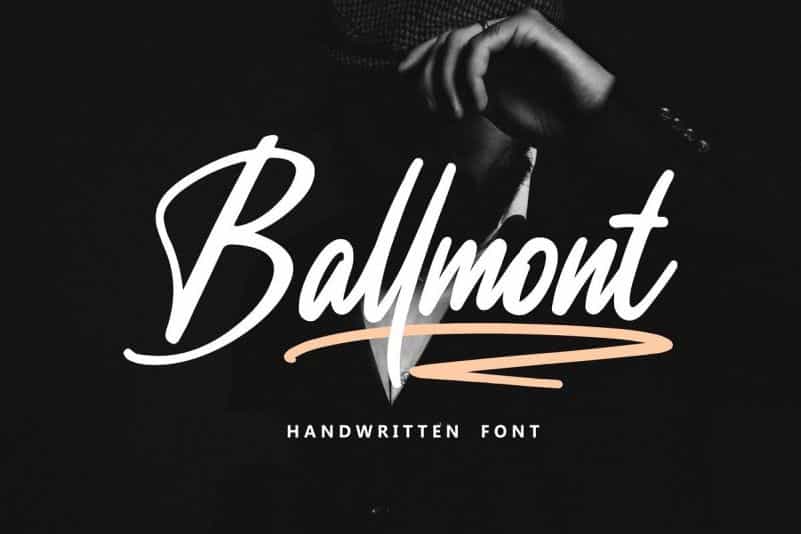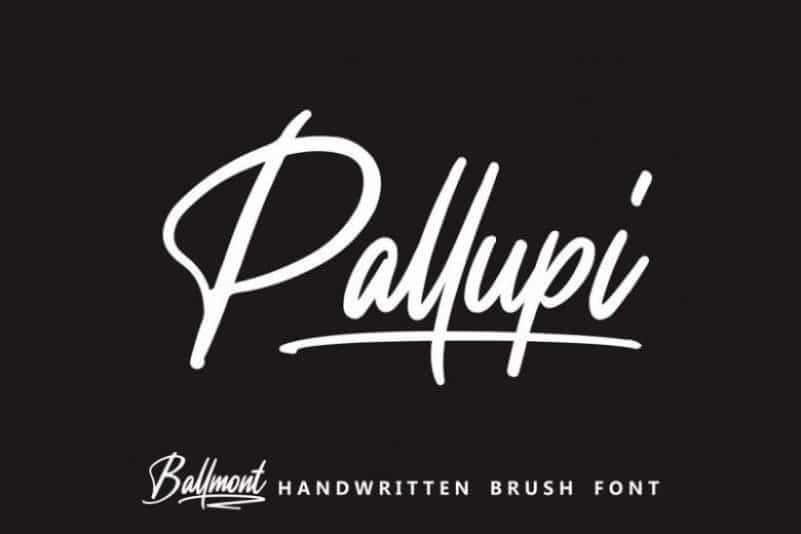
Discover Ballmont Font, part of the Brush Handwritten collection—a versatile and unique font perfect for adding a personal touch to your projects. Download it for free and enjoy crafting designs with style, from invitations to social media posts. This font is available exclusively for personal use, giving you the freedom to create without limits. Unlock your creativity with Ballmont Font today!
Introducing Ballmont Font. It is a carefully written modern calligraphy script, with soft curves, to create an utterly unique font. It consists of all lower and upper case letters, a wide variation of punctuation marks, numbers, and multi linguistic support. Ideal for introducing a classic and sophisticated look to your lettering works and branding.